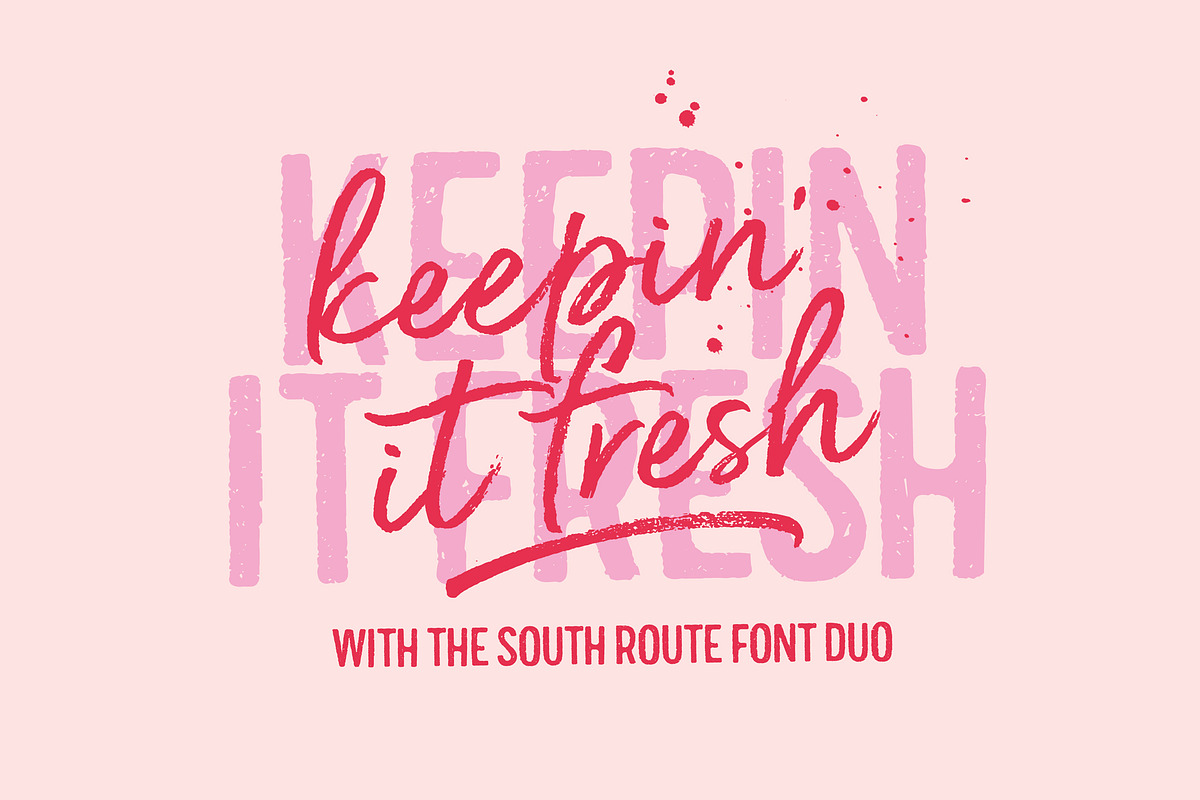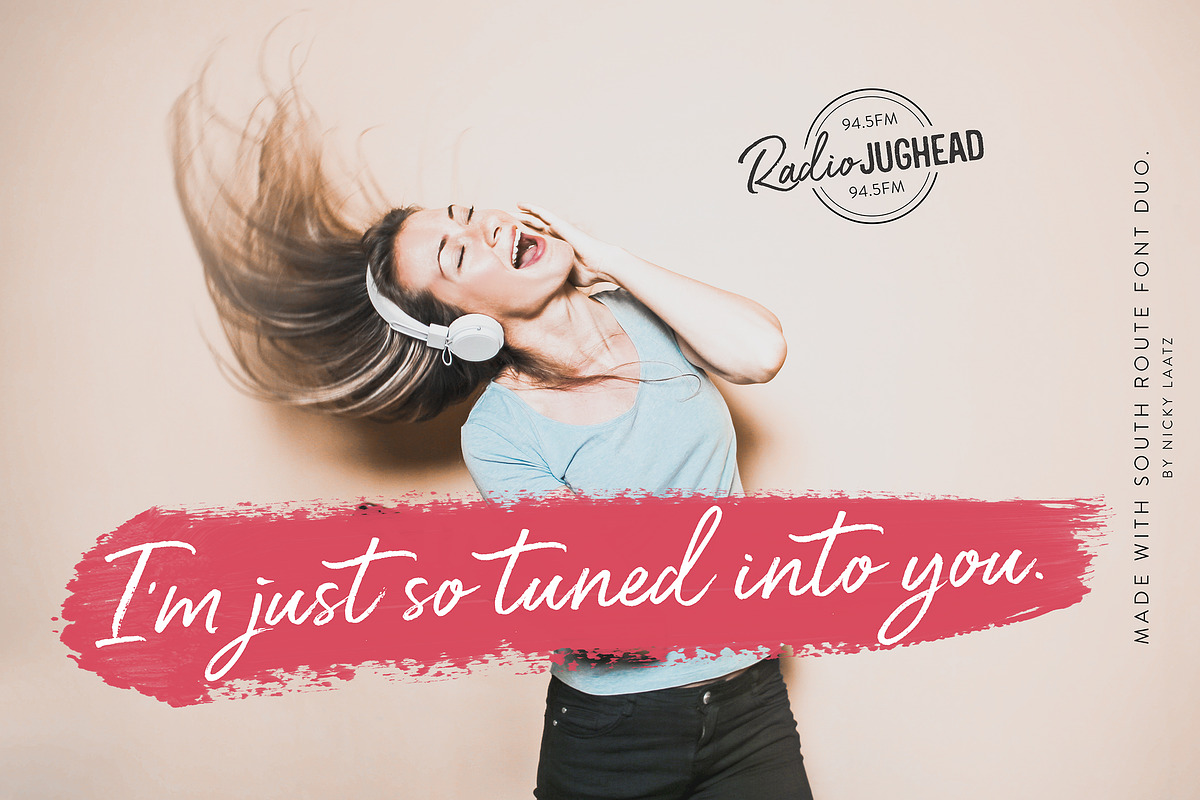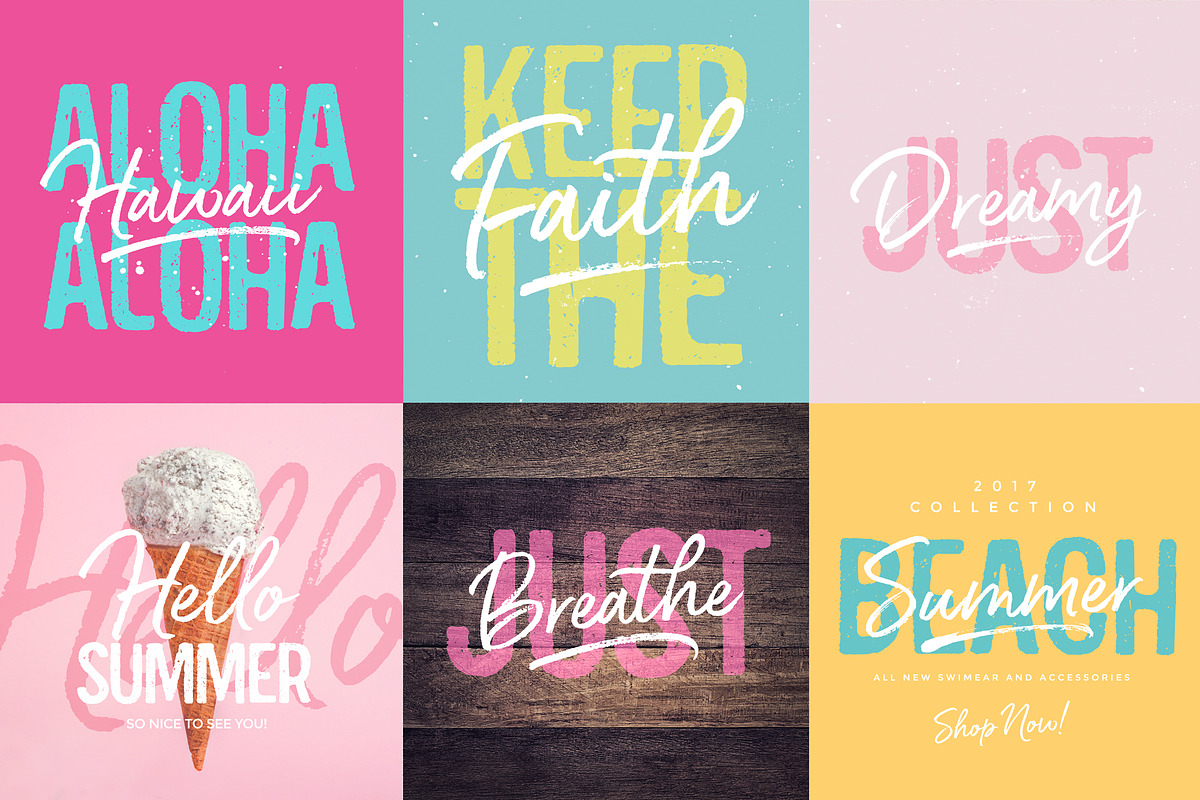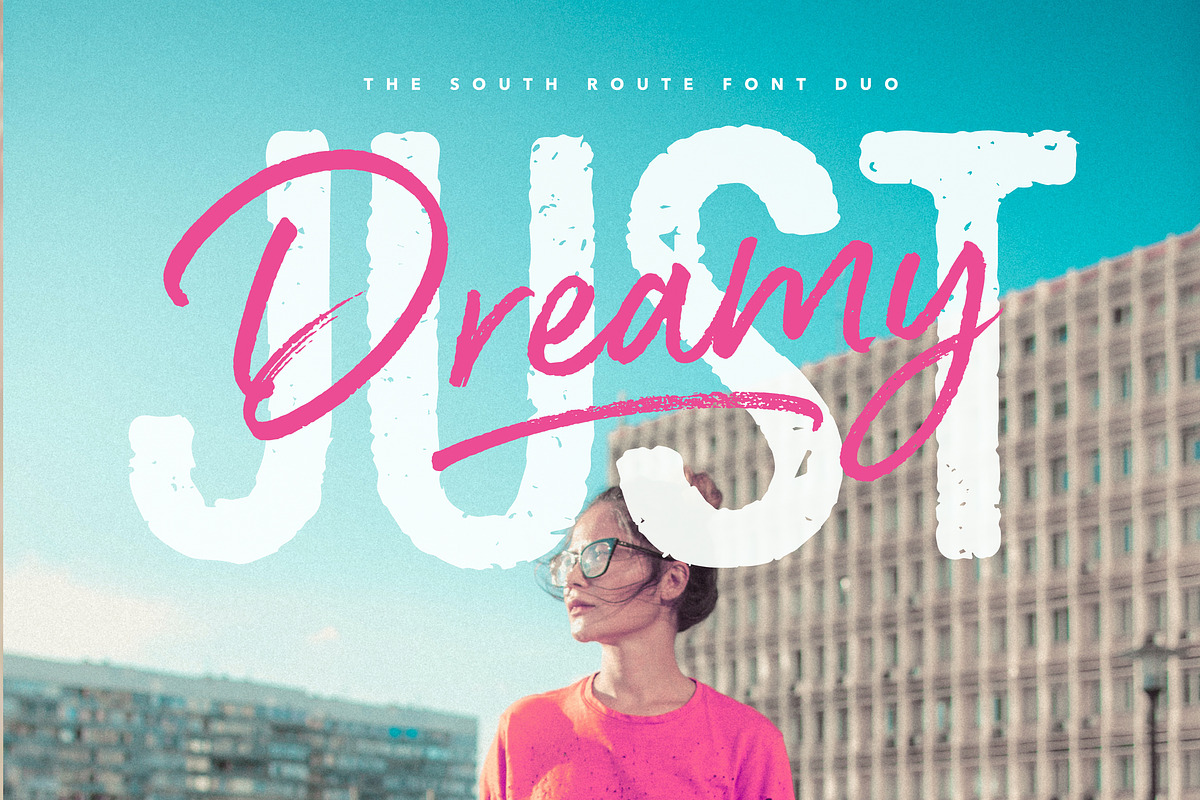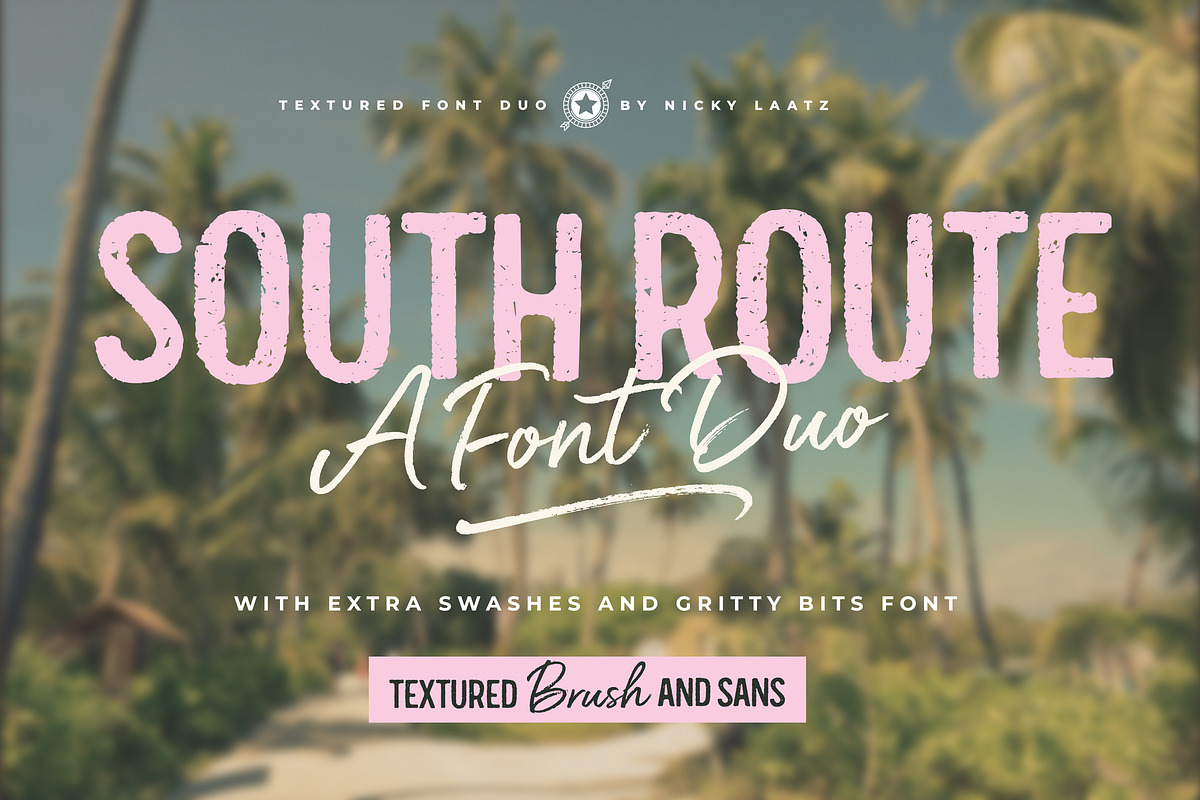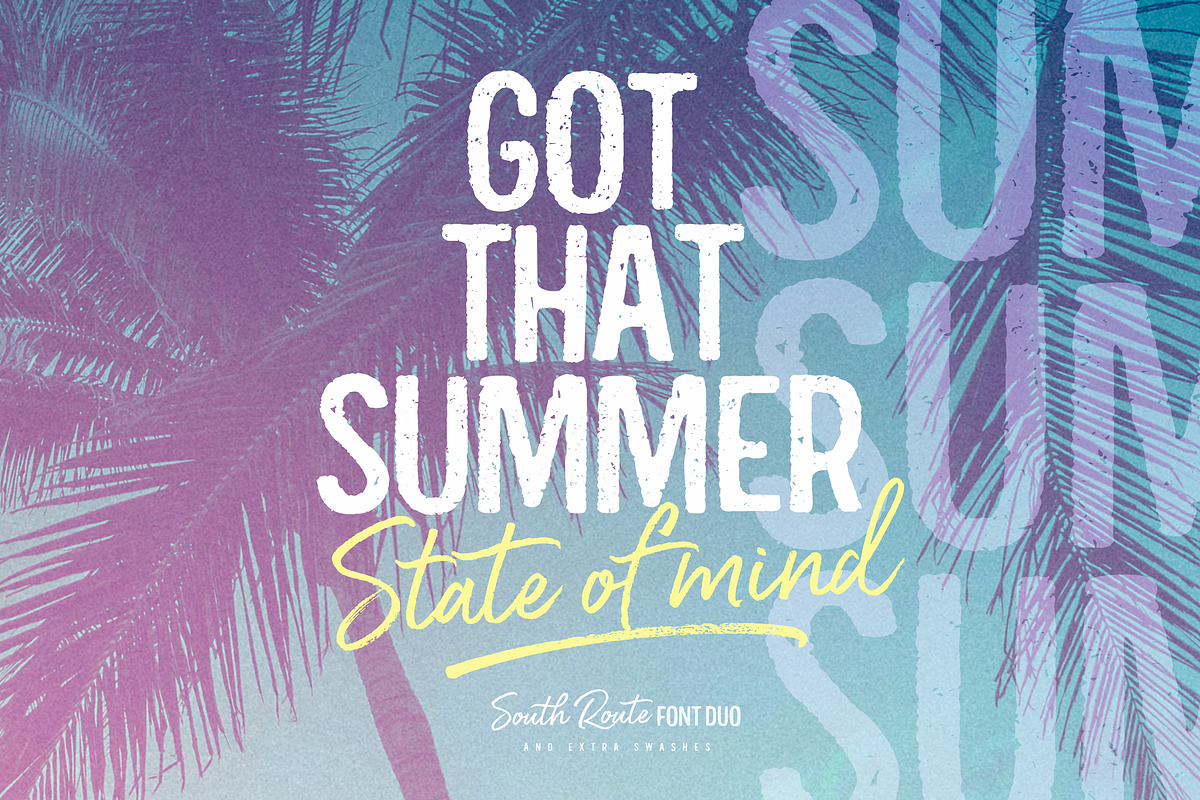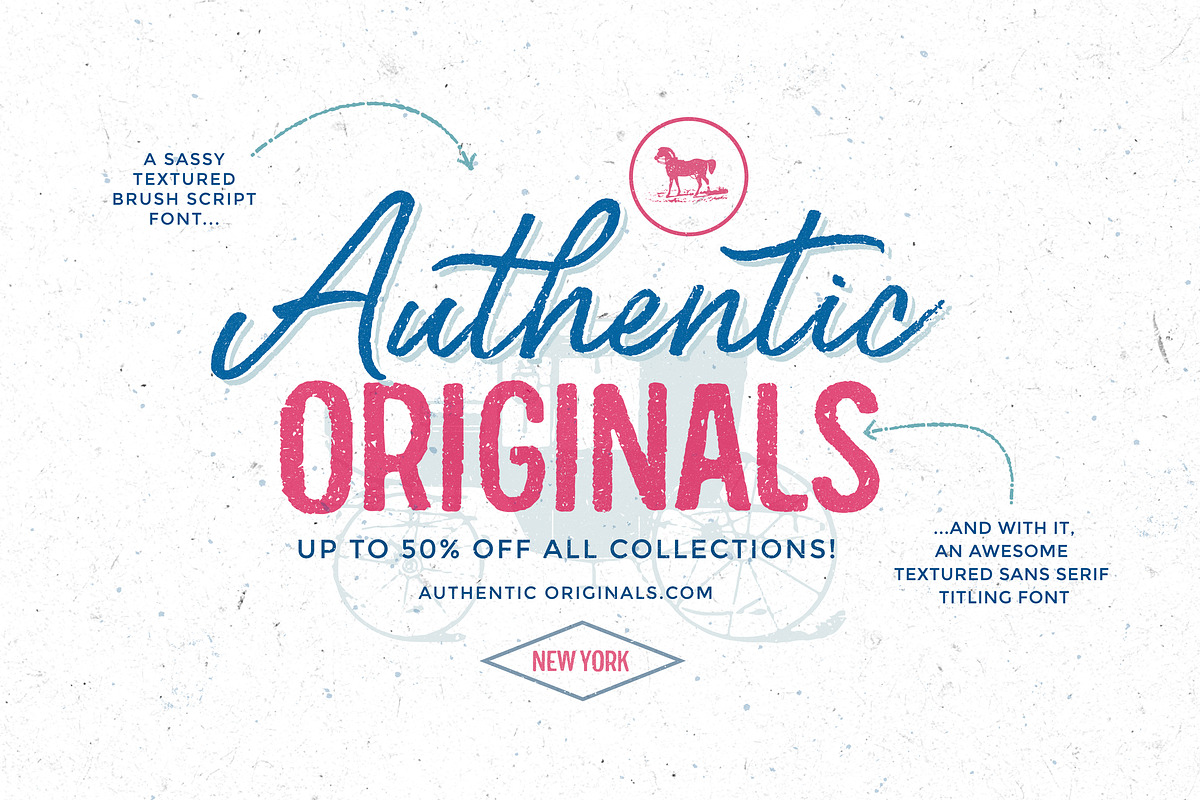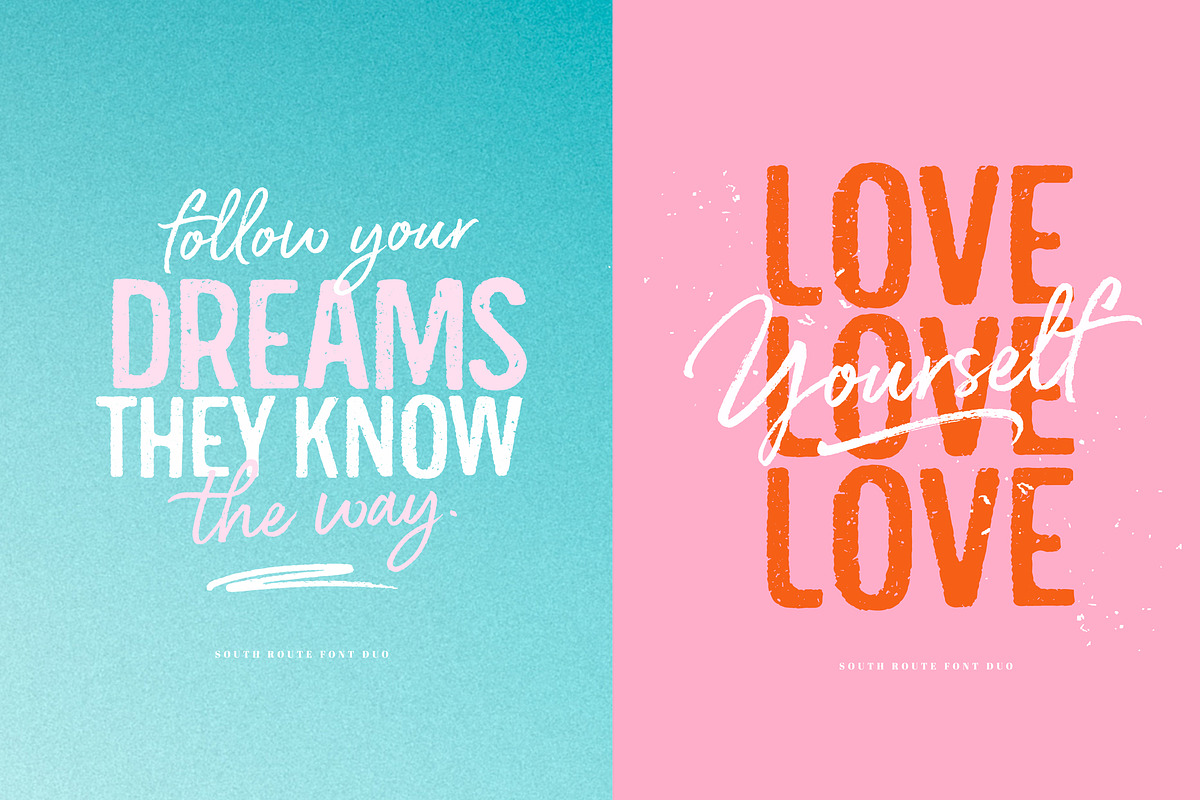
South Route Font Duo & Extras
Add a stylish punch to your designs with the bold new font duo South Route. Consisting of a textured All-caps sans serif, and a bold & sassy fashionable script, South Route offers you a multitude of possibilities in your professional type design projects.
The Script comes with two sets of lowercase alternates - pick the letters that looks best in your type design - and switch between different letters in the same word to create a more authentic look.
Perfect for making a statement, South Route's fonts couple to make beautiful typography designs - perfect for branding, posters, books covers, social media, merchandise and so much more.
South Route is packed with of a whole bunch of awesome extras - sassy swashes and gritty bits.
Bring your designs to life with a set of 26 extra dry marker swashes and gritty textures are found in a handy Extras font.